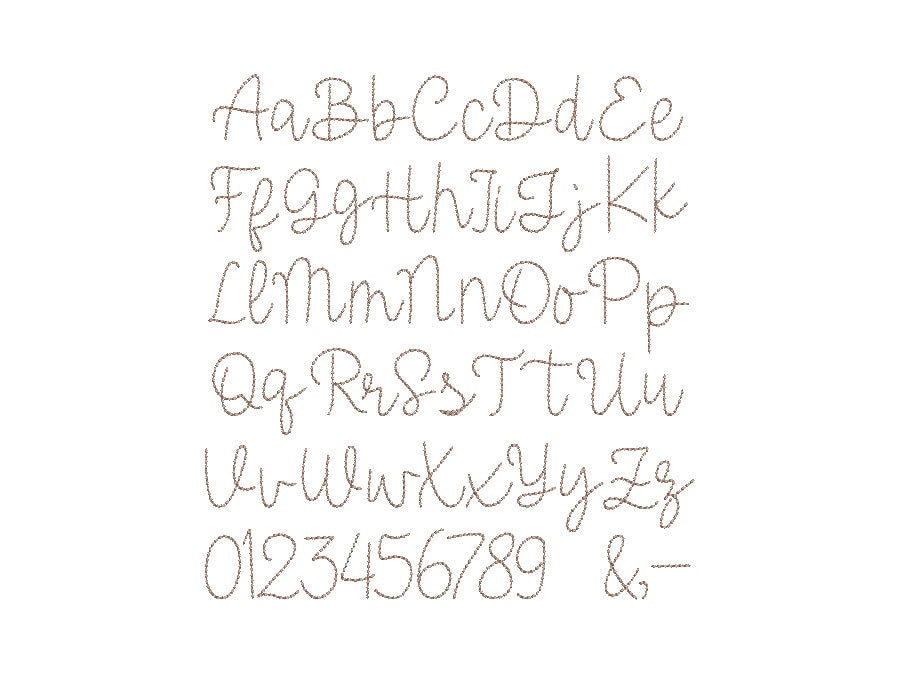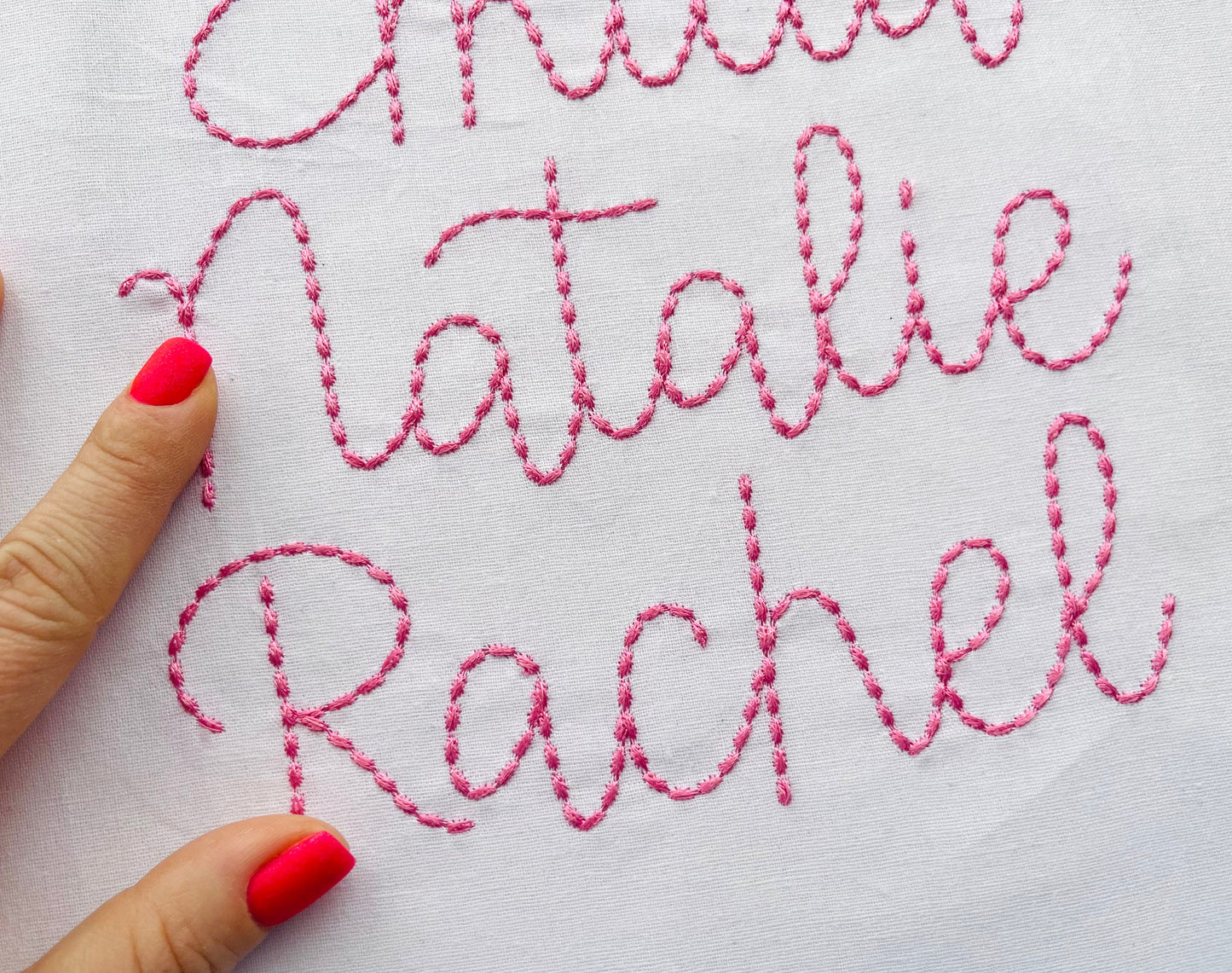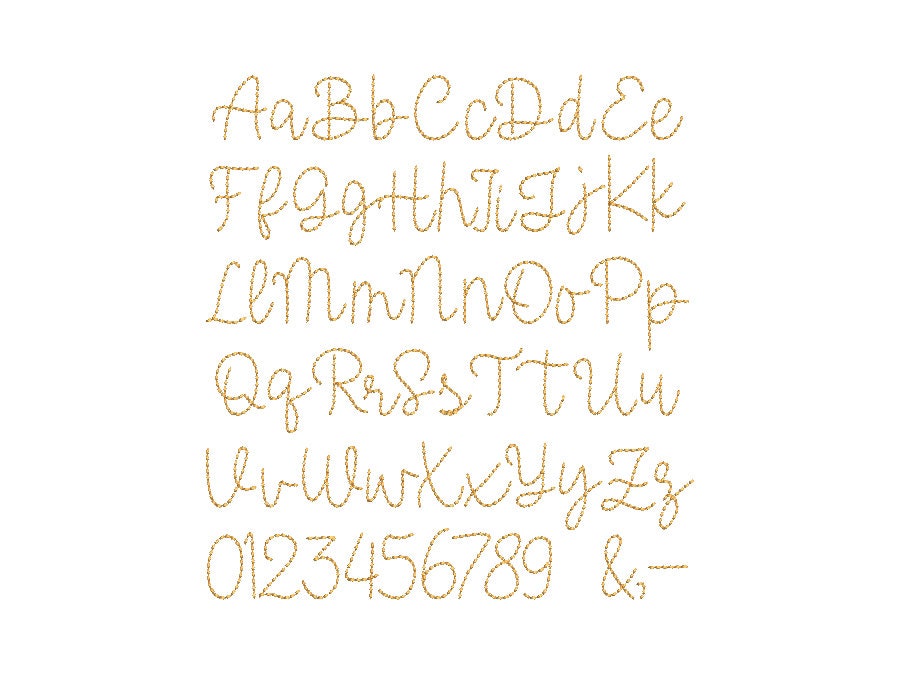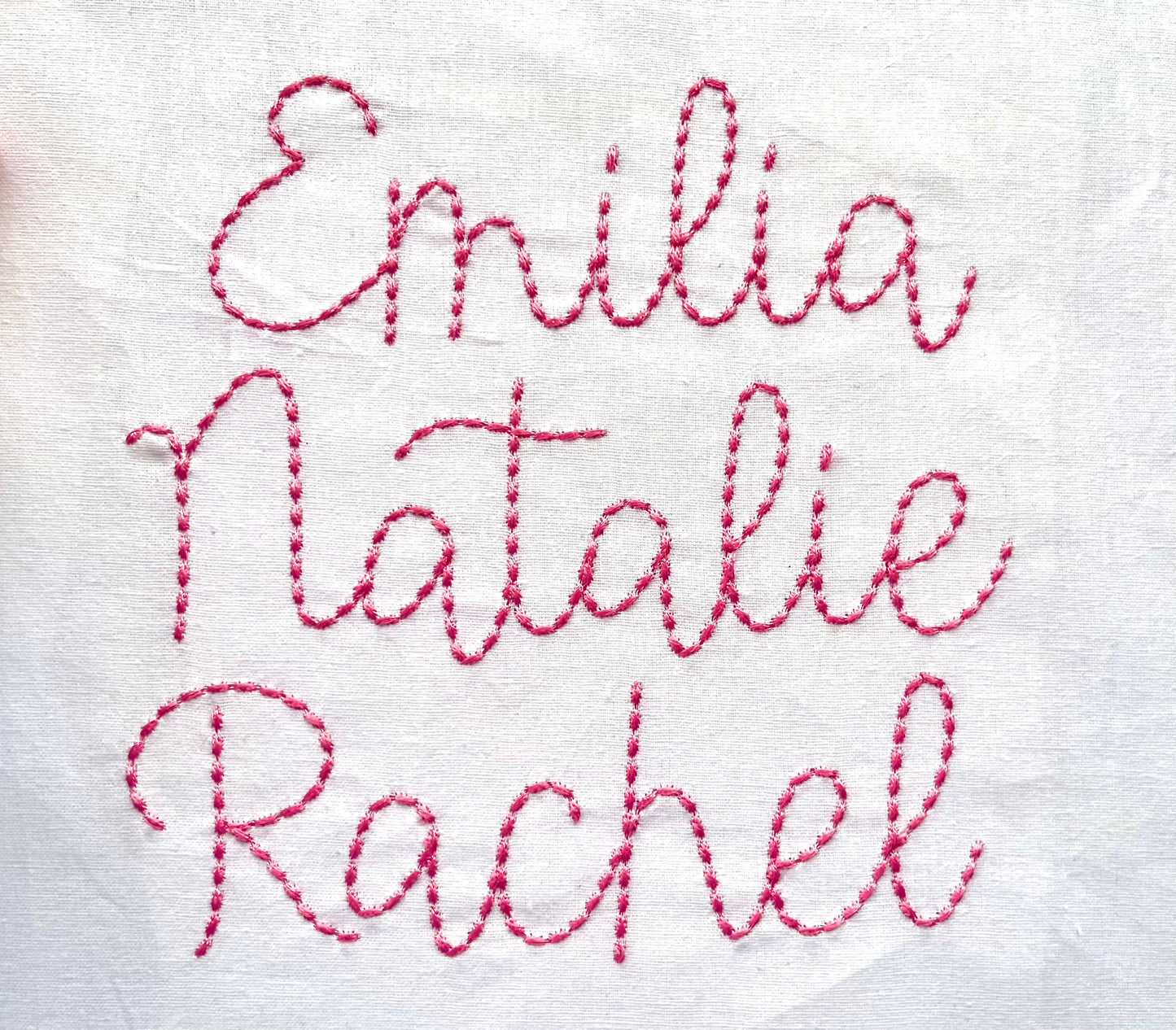
Cute and it is perfect for baby items!
Love this handstitch font, it stitches crisp every time, I like that you can move the letters around individually to ensure they all look correct.
Font was as pictured and stitched out well on my machine!
Love this font and the way it is digitized!
Stitched very nice and easy
Wonderful fonts, used with your kitten pattern..
Stitched out perfectly on shirt
very pretty font, stiched out perfectly.
Me gusta mucho este abecedario
Beautiful and neat! Had no problems with this font! Will definitely be using this again and again! ❤️❤️❤️❤️
Love the way this stitched out!
Such an adorable handmade font!
Perfect font for personalizations - excited to incorporate into my projects
Great font! I love using it with Valentine's Day designs. For some reason it fits.
Stitched out great on fabric!
such a cute file. Hopefully I can figure out how to use it with my embroidery machine.
Absolutely love how this looks on some of my monogram pieces
Stitched out beautifully and looks so cute on the onesie!!
Really liked this embroidery file, it stitched out nicely
Stitched great and just what I was looking for!
This is probably my new favorite font!!! I used it on the top two onesies!
High quality, would recommend this embroidery font
It stitched out perfectly. It looked hand done only better.
Stitched out beautifully & it was so cute!
Font turned out perfect for what I was needing!